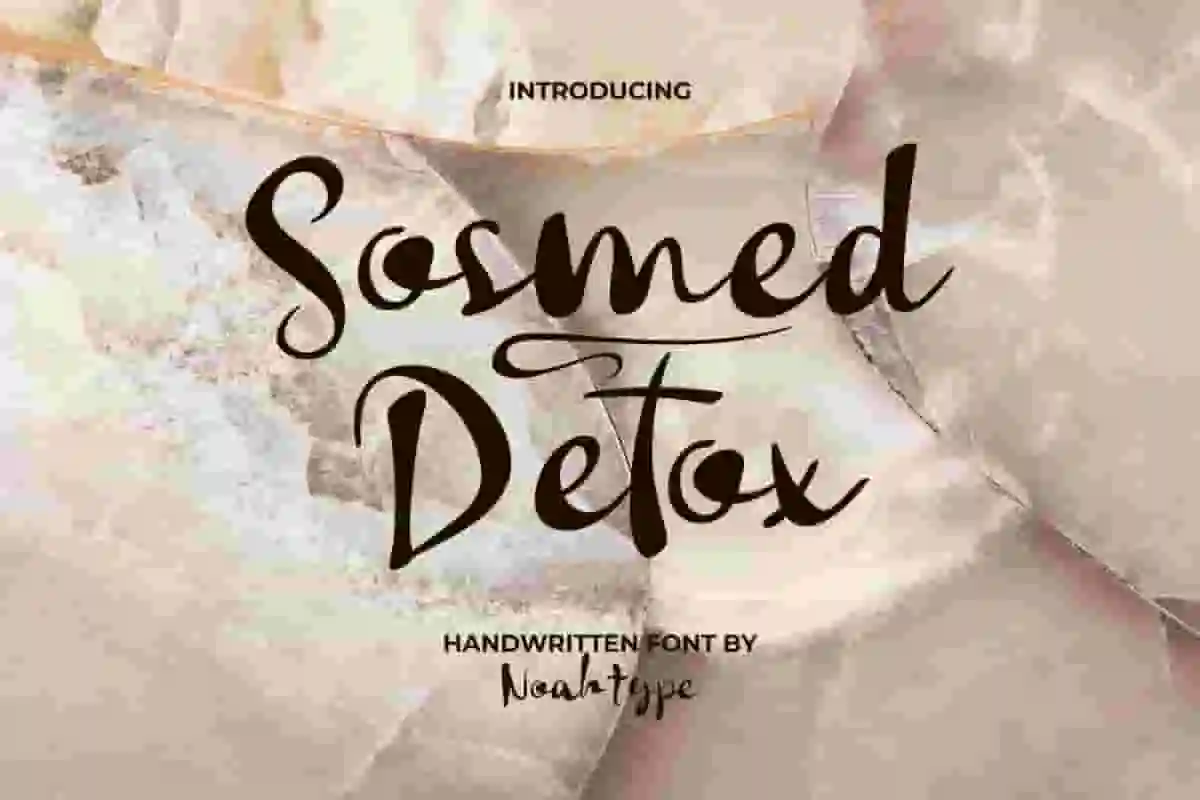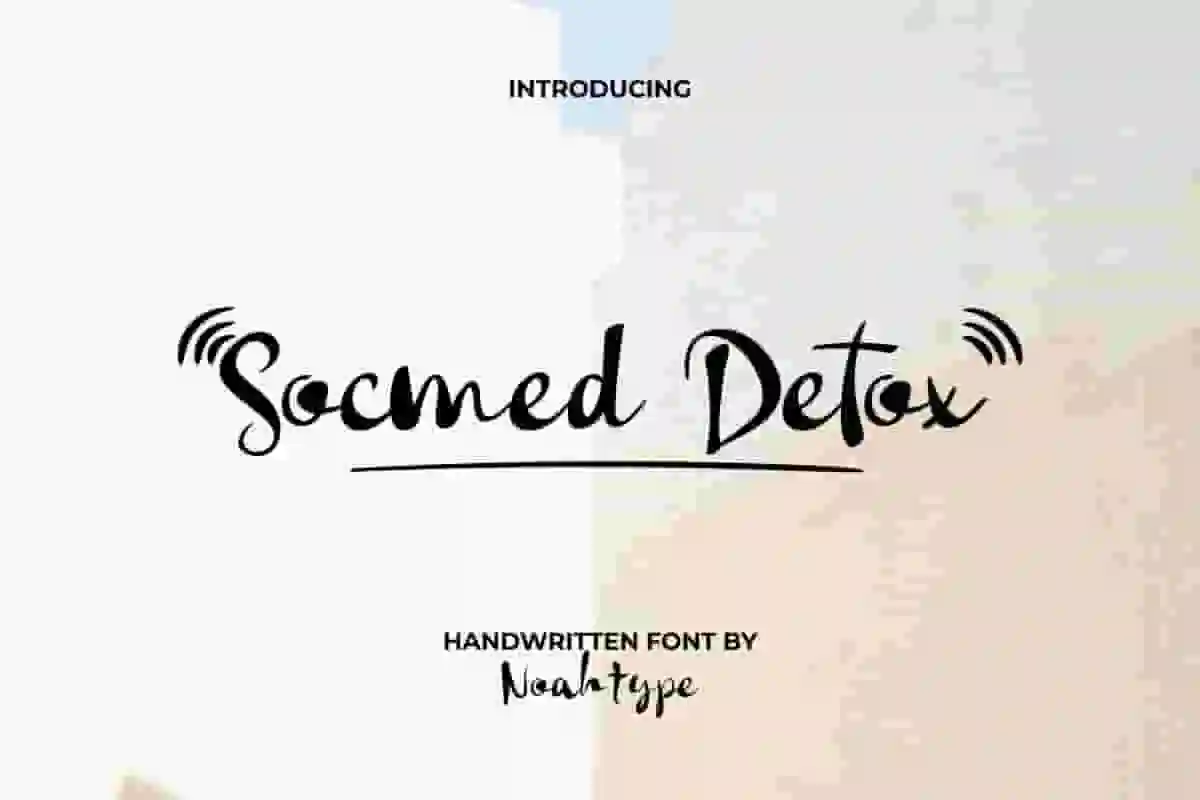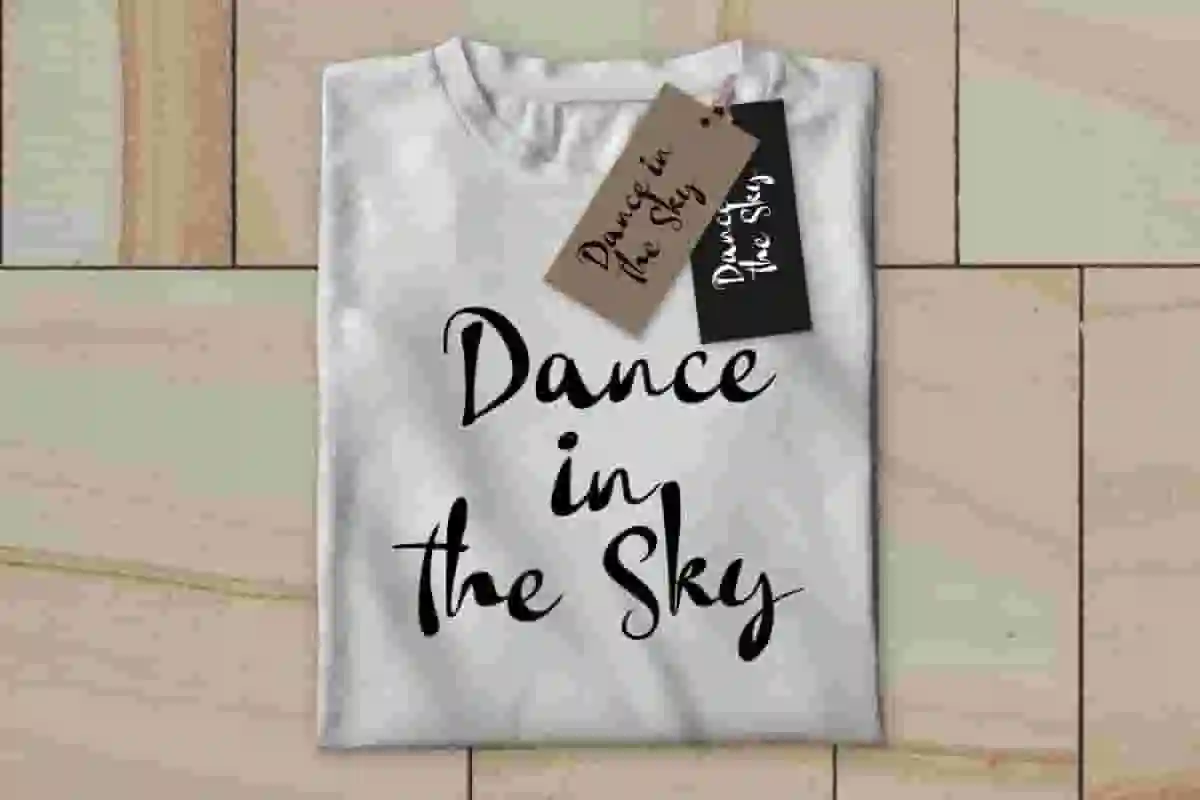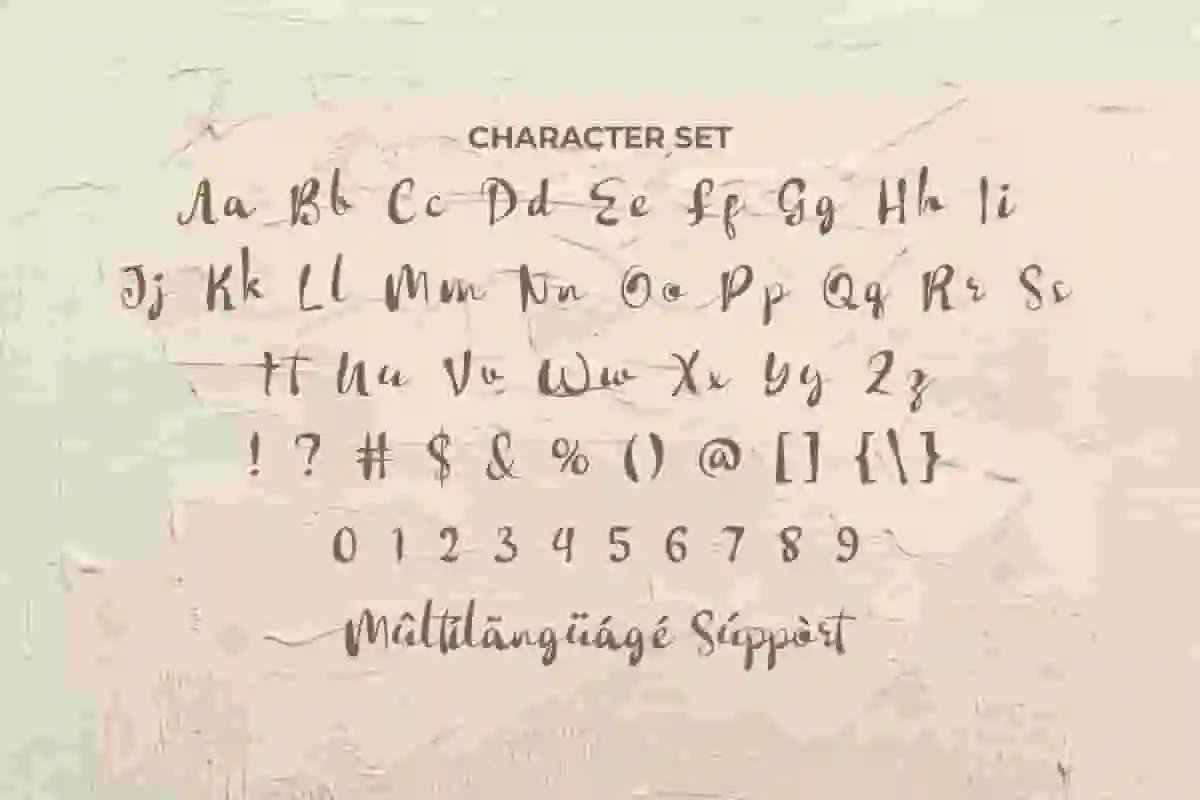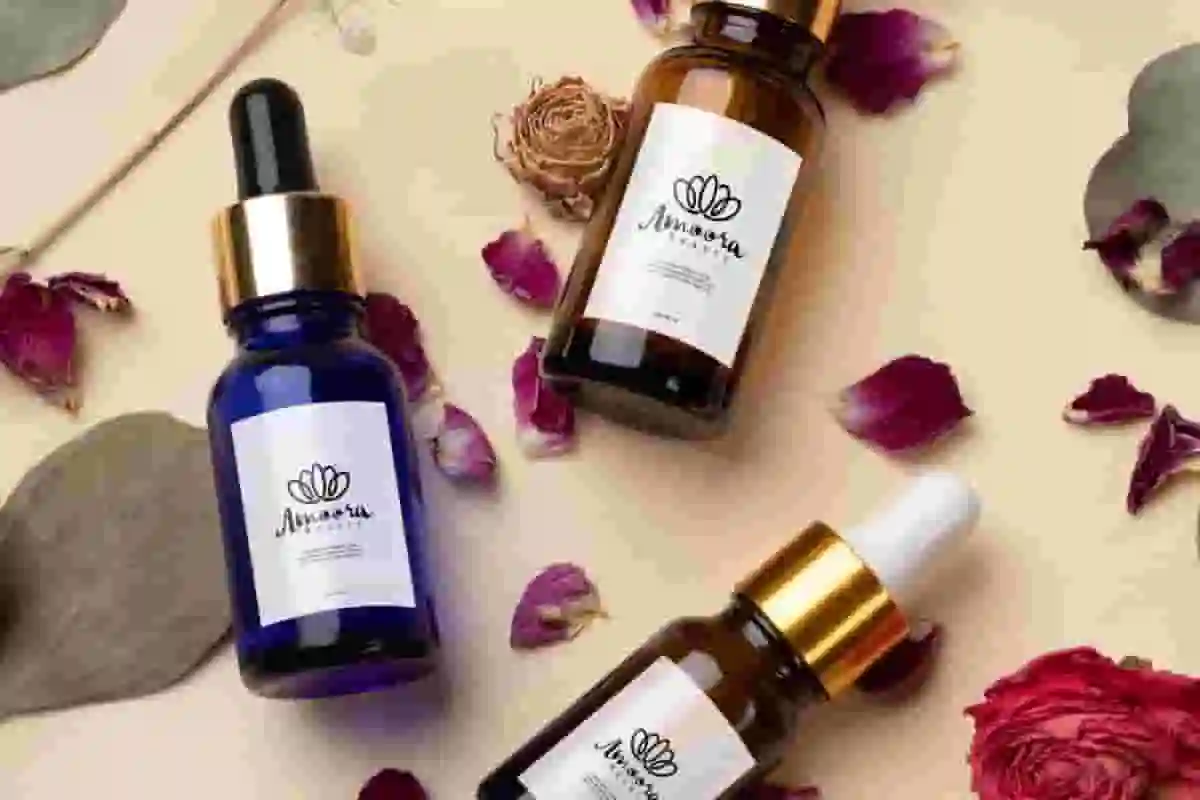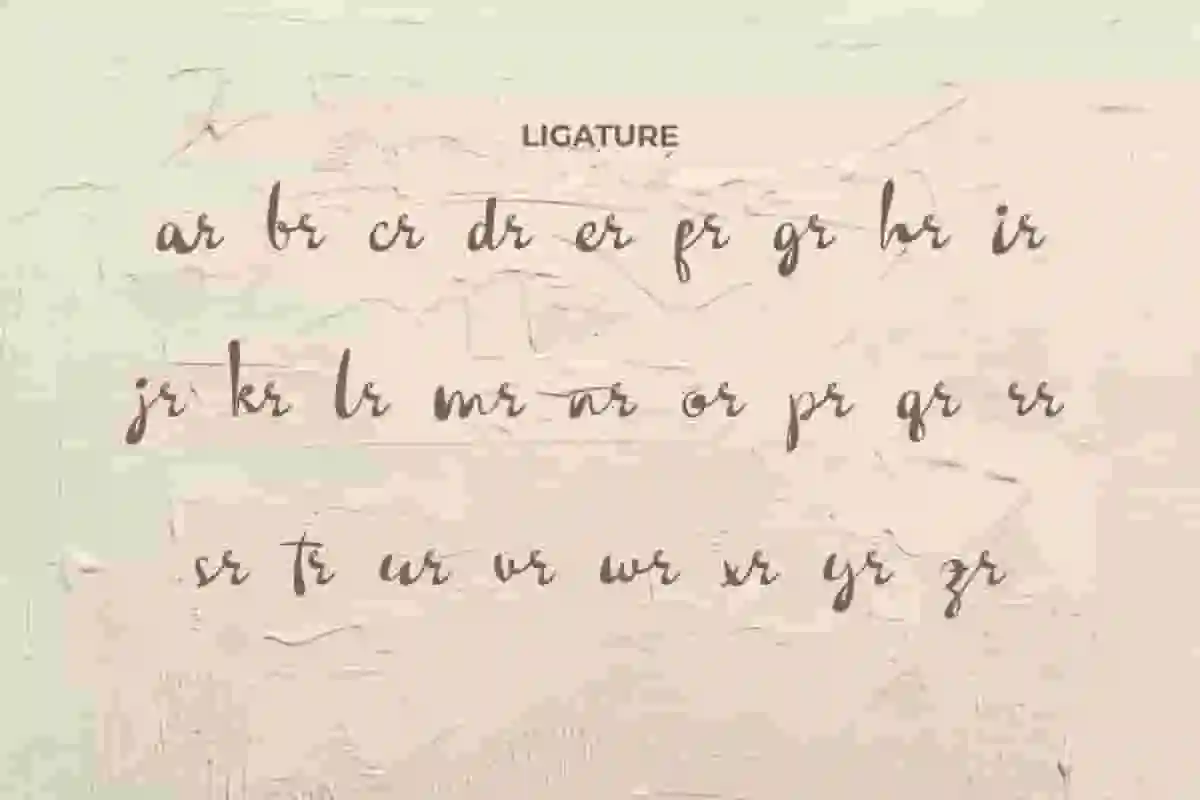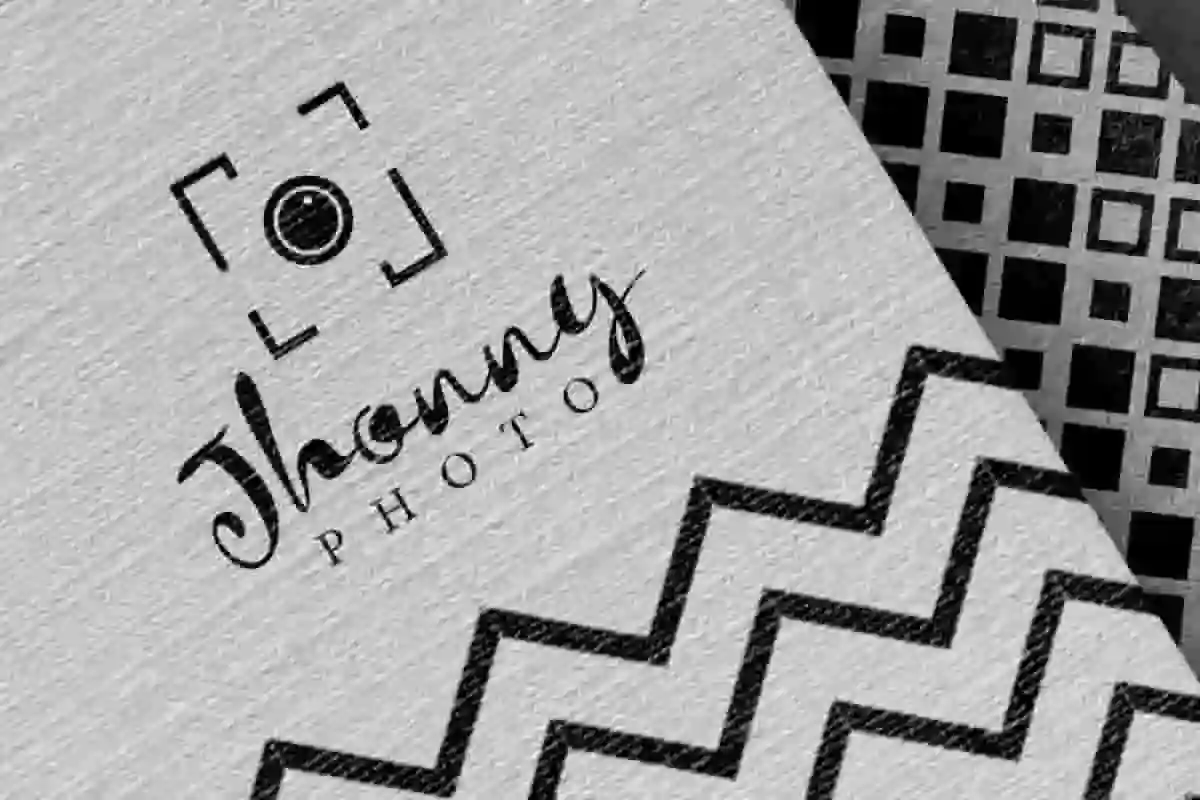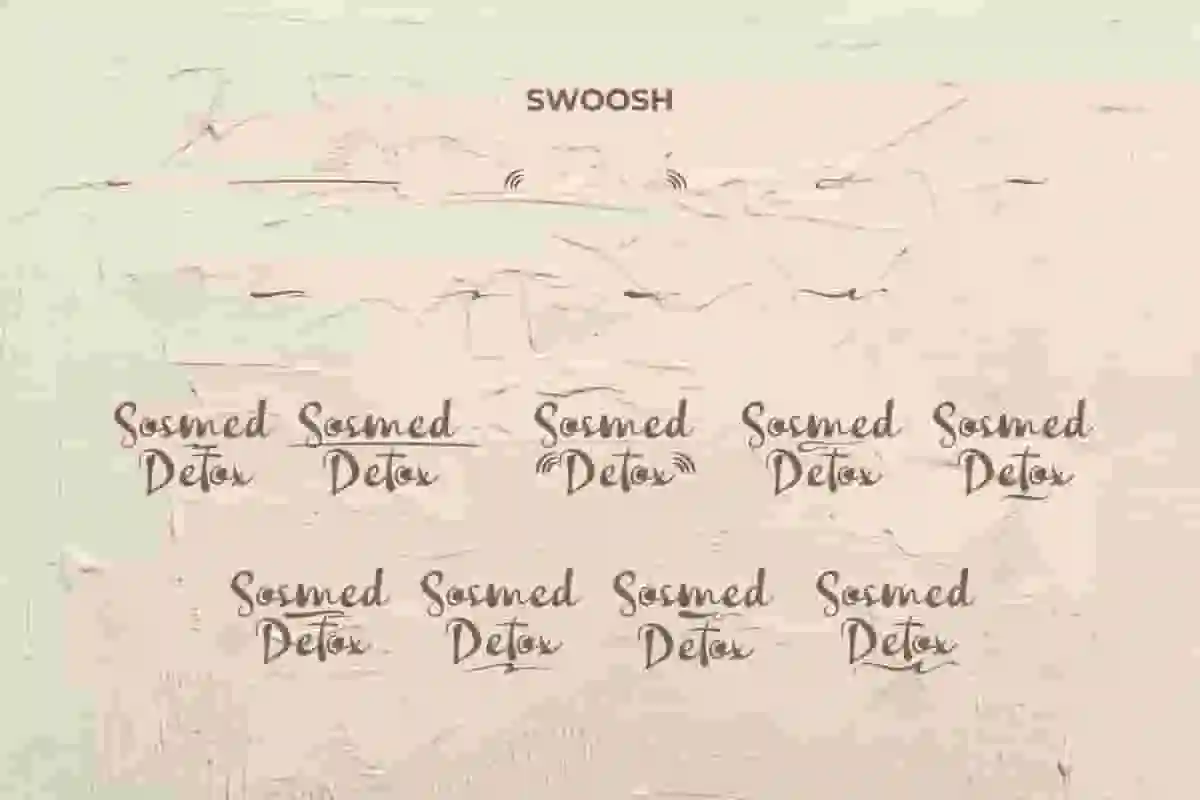
Socmed Detox Font is a uniquely stylish handwriting with bold brush strokes. This beautiful font will turn your project into an eye-catching masterpiece. It will be suitable for any industries, such as accessories, author, clothing brand, cosmetic, handicrafts, perfume, photography, printing, publishing, resort, writer, and more!
Socmed Detox Font includes full set of Uppercase and Lowercase Basic Characters, Numerals and Punctuation, Ligature, and Swoosh. Get inspired and use this font in your various designs, such as brand logo, brochure, labels, mockup design, poster, product packaging, quotes, screen printing, stationery, title, website, and more!
Bring a breath of fresh air to your creative projects with Socmed Detox Handwritten Font, a modern handwritten typeface that blends casual charm with stylish authenticity. Designed for creators who want to escape the ordinary, this font delivers a warm, organic feel that captures attention and leaves a lasting impression.
Its smooth curves and natural flow make it perfect for branding, social media posts, product packaging, invitations, quotes, blogs, and more. Whether you’re designing for lifestyle, beauty, fashion, or creative businesses, this font adds an approachable yet professional edge to your work.
Socmed Detox Font supports multilingual languages (including multiple currency symbols) with a simple installation, also have swoosh characters options that you can select and use to make it standout. The font will be ready to use both on Windows machine or Mac. It work well on Adobe software such as Illustrator, Photoshop and several other software.